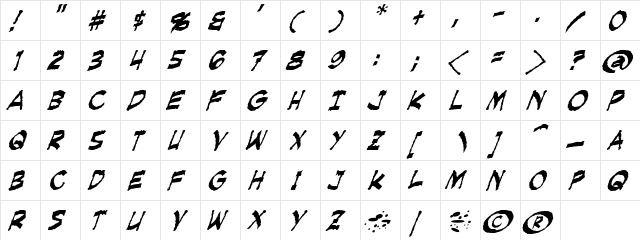
Creeping Evil Italic
Design Context for Creeping Evil Typeface
Creeping Evil leans into the macabre with letterforms designed to disturb and intrigue in equal measure. The slanted form adds forward momentum and visual energy.
Ideal for Halloween projects, horror film titles, haunted house signage, and dark editorial design.
Font Pairing: Pair with a clean neutral sans-serif for body copy to let Creeping Evil's character lead without overwhelming the composition.
Pro Tip: Creeping Evil works best as a headline or focal element. Pair it against plain, neutral body text to amplify the contrast.